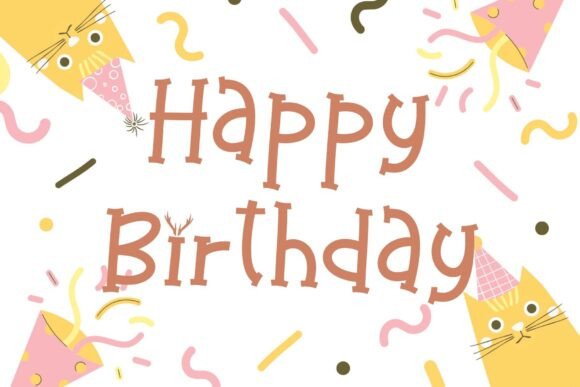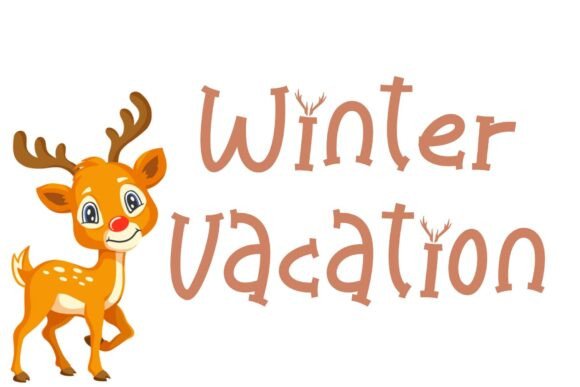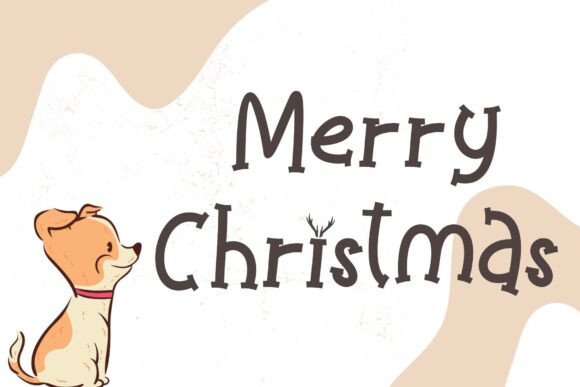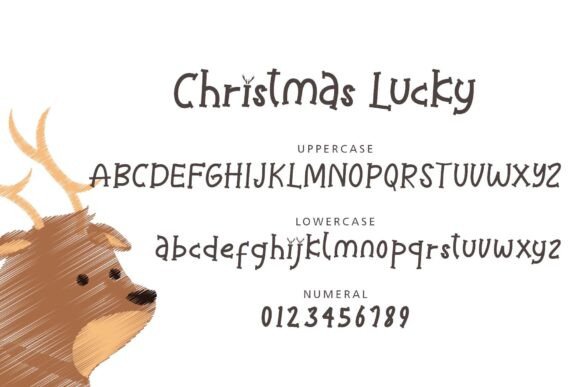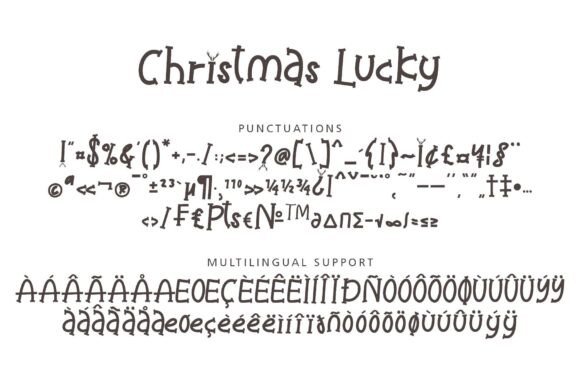
Introduction to Christmas Lucky Font
As a designer, there’s nothing quite like the rush of creating something special for a client’s holiday campaign. The twinkling lights, the festive colors, and the joyous spirit of the season all come together to inspire some of your most creative work. And for those moments when you need a little extra sparkle, there’s one design resource that’s sure to shine: the Christmas Lucky Font.
With its cheerful capital letters, lowercase letters, numbers, punctuation, and multilingual support, this font is the perfect addition to any creative project. Whether you’re designing a Christmas card, a birthday banner, or a Halloween poster, the Christmas Lucky Font is sure to add a touch of magic to your design. And the best part? It’s a free download, making it an accessible and valuable resource for designers of all levels.
Key Features of Christmas Lucky Font
- Unique, festive design with a touch of magic, perfect for creative projects and holiday-themed designs
- High-quality font with transparent background, allowing for easy customization and versatility
- Includes a range of ornaments, borders, and other design elements to enhance your creative project
Honest Review: Christmas Lucky Font
I recently stumbled upon the Christmas Lucky Font and I must say, it’s been a delightful addition to my creative project. As a designer, I’m always on the lookout for high-quality design resources to elevate my work.
The font itself is a beautiful, festive design that’s perfect for the holiday season. It’s available as a free download, which is a huge bonus. Upon closer inspection, I was pleased to find that the font has a transparent background, making it easy to use in a variety of design contexts.
Here are some things that work well: ✨
- High-quality design: The font is well-crafted and looks great on a variety of backgrounds.
- Festive feel: The design perfectly captures the spirit of the holiday season.
However, I did encounter a few limitations: ⚠️
- Limited style options: The font only comes in a single style, which may limit its versatility.
- No bold or italic variants: These would be nice additions to the font.
Overall, I’m impressed with the Christmas Lucky Font. It’s a great resource for designers working on holiday-themed projects, and its high-quality design and transparent background make it a pleasure to use. While it’s not perfect, I appreciate the font’s festive feel and would definitely recommend it to fellow designers.
The Christmas Lucky Font is perfect for any holiday-themed design project, such as greeting cards, social media posts, and gift tags. It’s also great for branding and marketing materials, such as brochures and flyers.